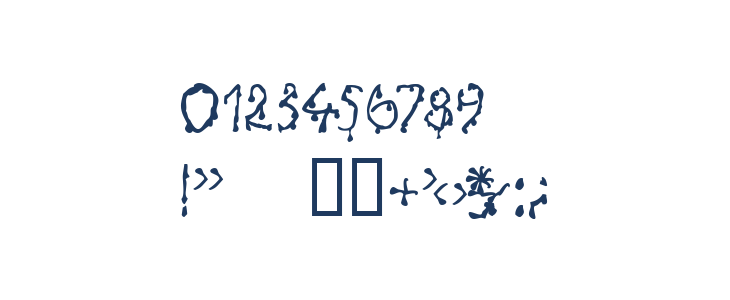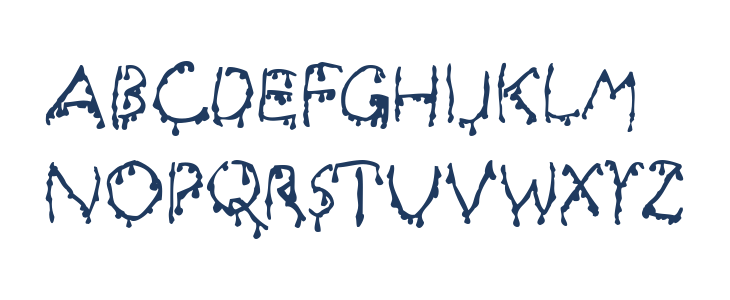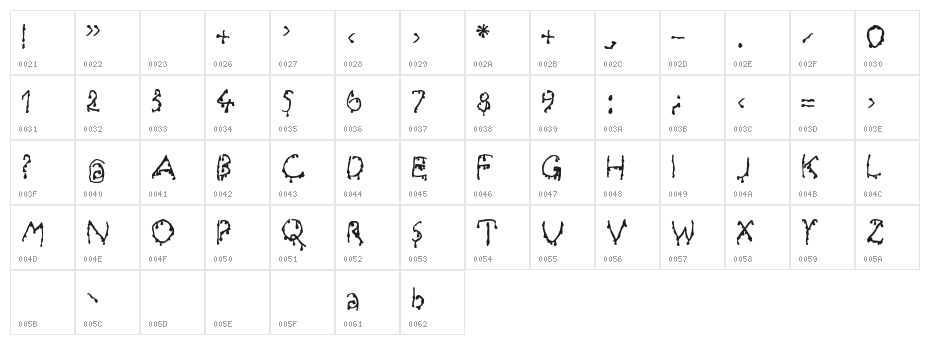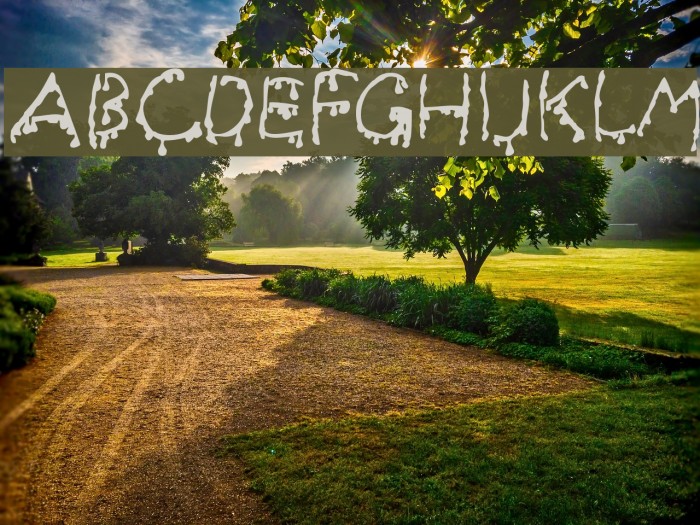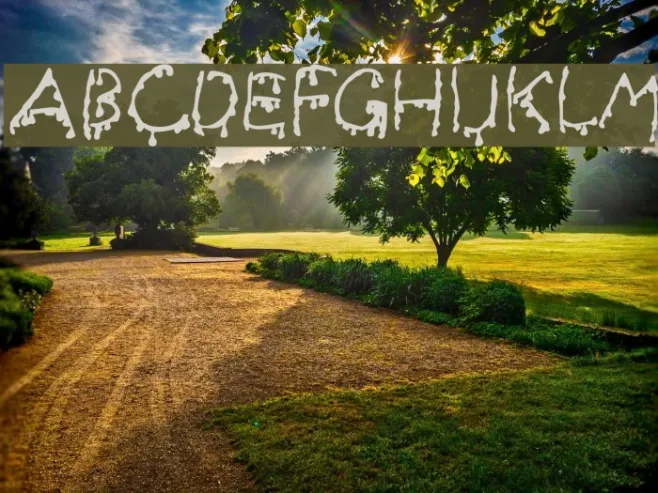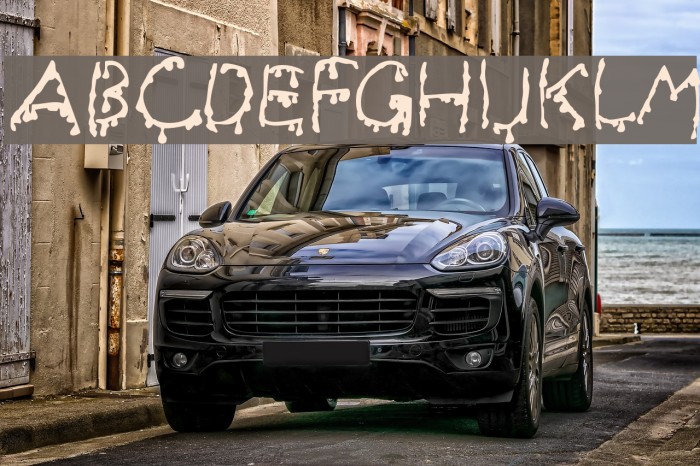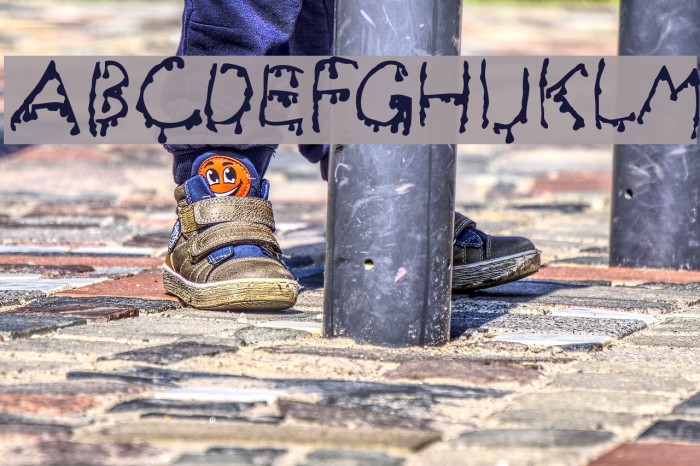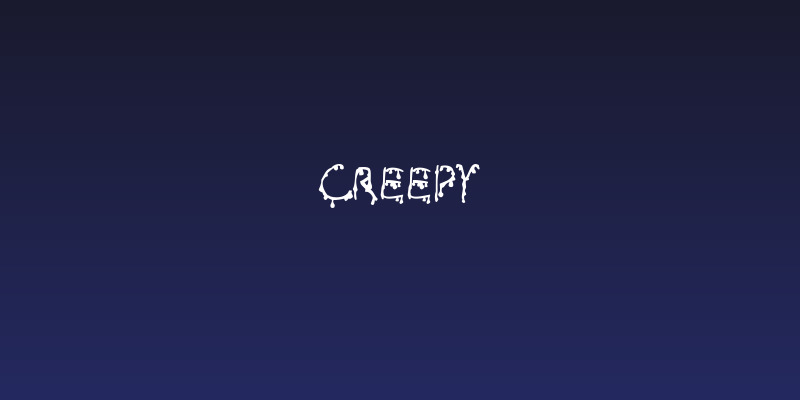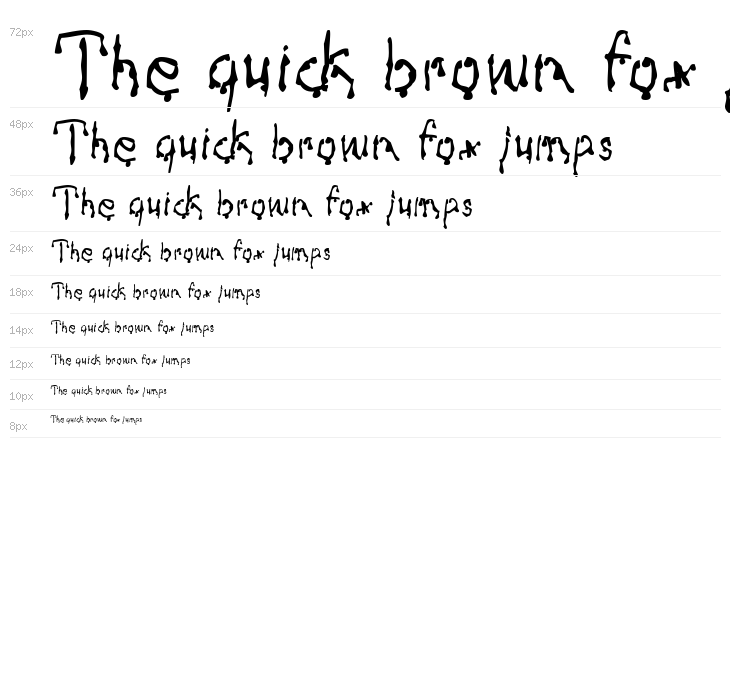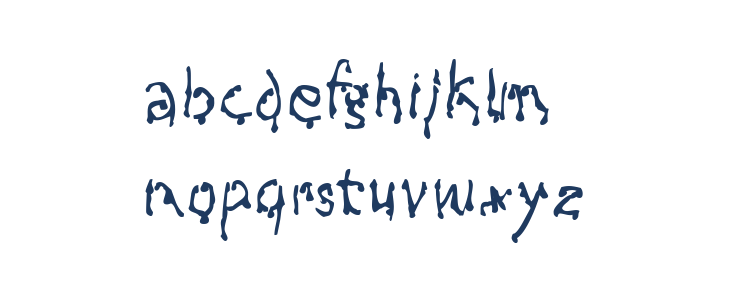
Creepy Font
Creepy Description
This font exudes a chilling and eerie vibe, perfect for creating a spooky atmosphere. The letters appear as if they are dripping or melting, with irregular edges and a slightly distorted form. This unsettling style is ideal for Halloween-themed projects or horror movie posters. The uppercase and lowercase letters maintain a consistent unsettling appearance, while the numbers and special characters follow the same dripping motif. The font's unique design makes it stand out, capturing attention with its creepy aesthetic.
Overall StyleDecorative
Use CaseHeadlines, Logos
Proposed ProjectsHalloween invitations, horror movie posters, haunted house flyers, spooky event branding.